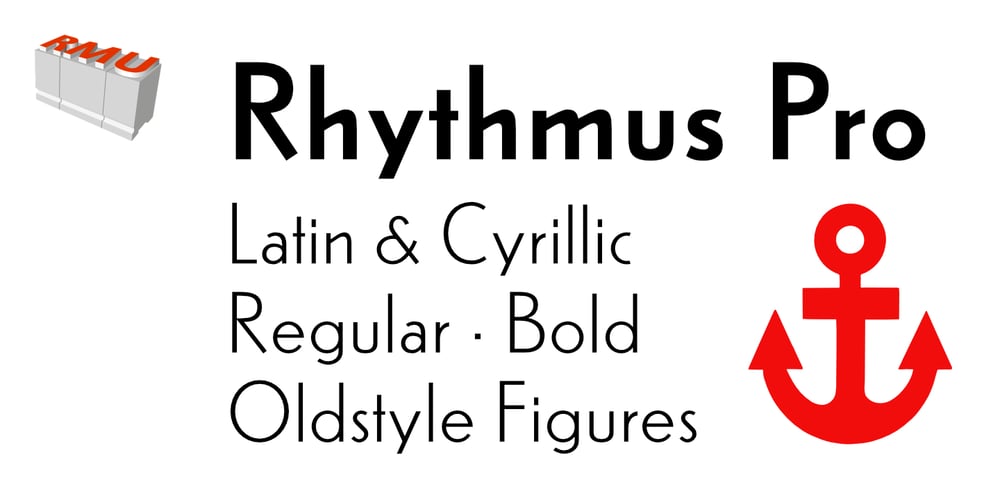
Rhythmus Pro
Rhythmus Pro font
Rhythmus Pro Font Family was designed by Ralph M. Unger and published by RMU. Rhythmus Pro contains 2 styles and family package options. Schelter & Giesecke’s grotesk font family, widely used for their marketing and in-house prints, now revived and extended with a Cyrillic character set and old-style numerals.